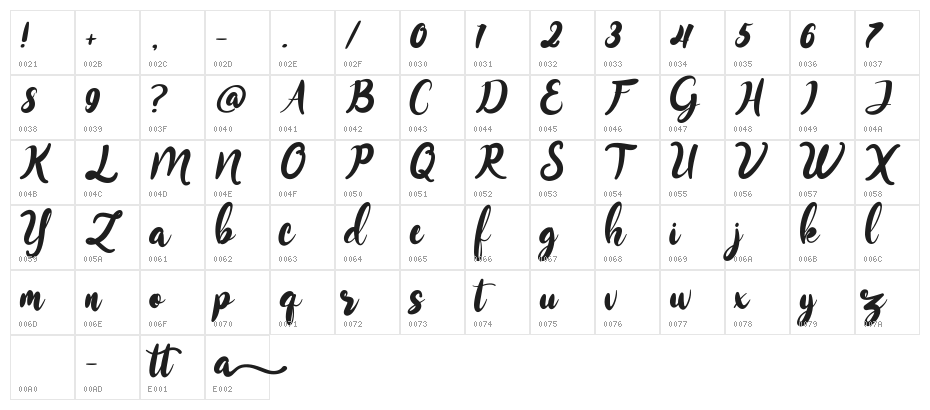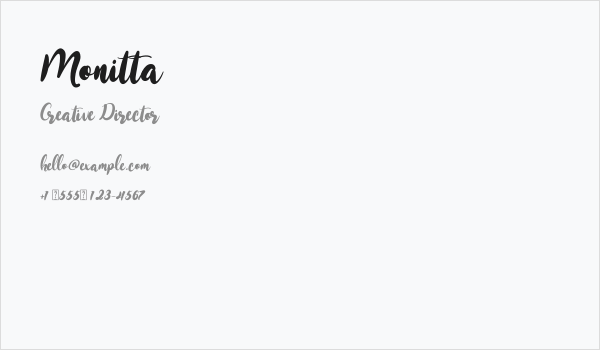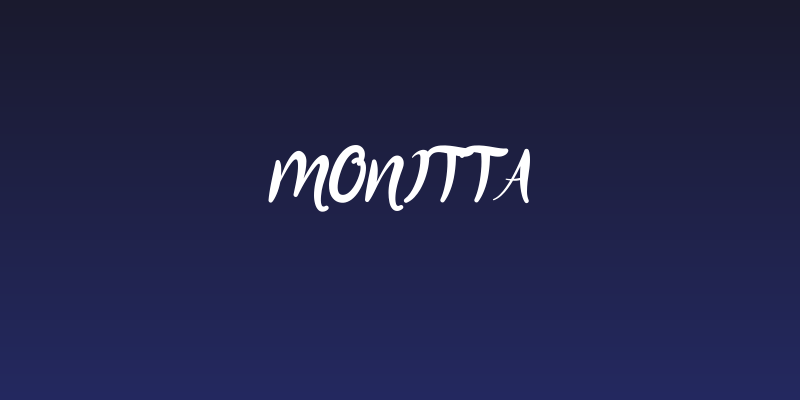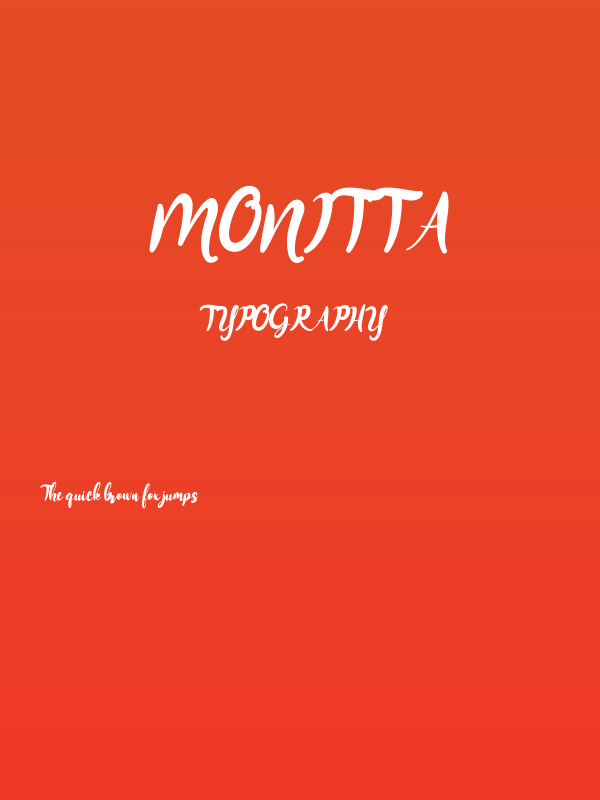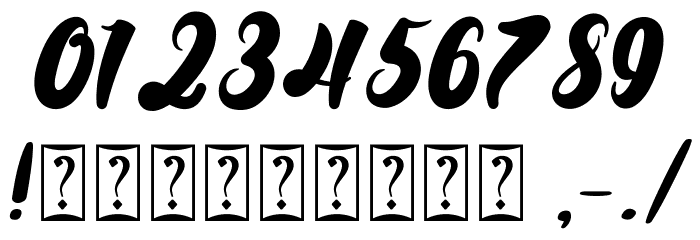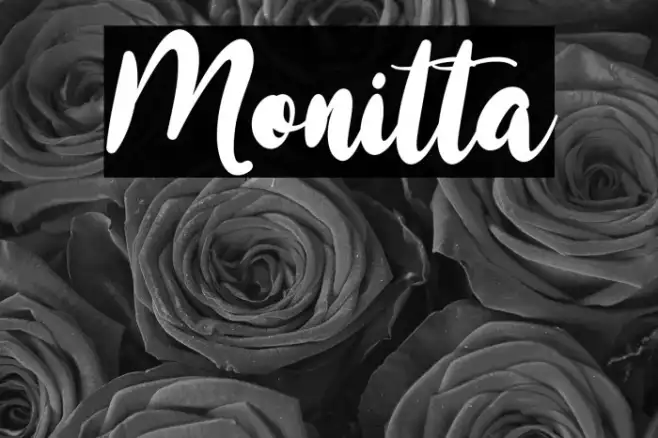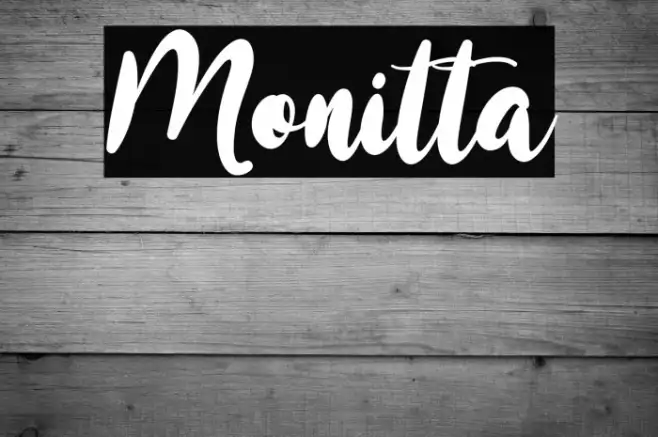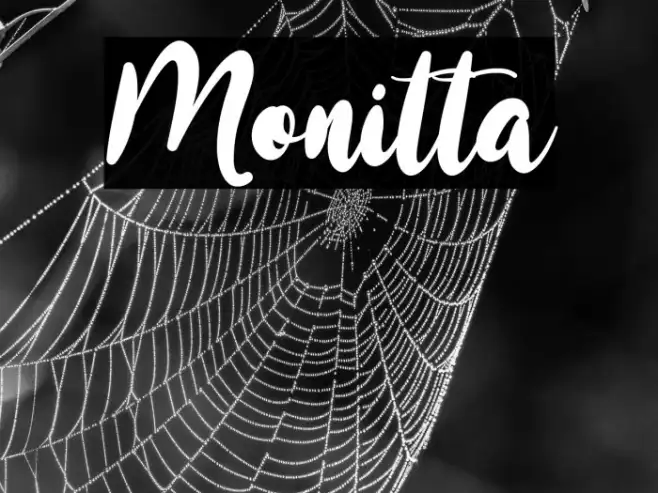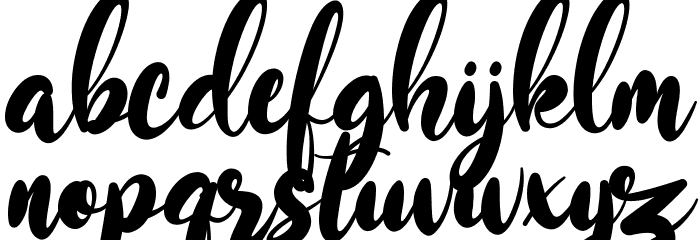
Monitta Font
Monitta Description
This font features a bold, flowing script style that exudes elegance and sophistication. The uppercase letters are tall and slightly slanted, with graceful curves and flourishes that add a touch of drama. The lowercase letters maintain a consistent flow, with smooth connections between characters, enhancing readability while preserving the decorative nature. The numerals are bold and rounded, complementing the overall style. Special characters are designed with the same attention to detail, ensuring a cohesive look across all glyphs. This font is ideal for projects that require a touch of elegance and personality.